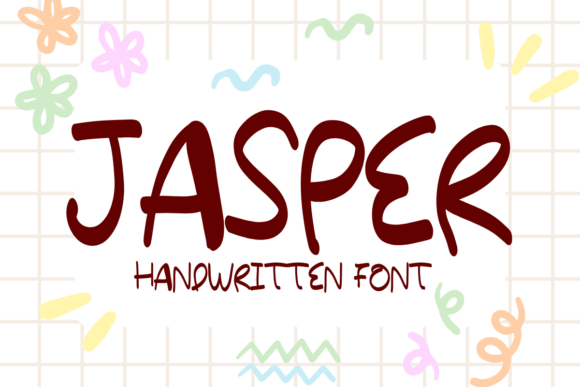
Prepare to be captivated by Jasper Font, a sans serif typeface that harmoniously blends elegance and simplicity. Crafted by the talented Sirinart, this font family is renowned as the perfect choice for wedding programs, exuding an aura of timeless sophistication and refined artistry.
With its clean lines and meticulously designed letterforms, Jasper Font offers an aesthetic that transcends time, making it the ideal font for discerning individuals seeking a balance between classic beauty and modern flair. Its versatility extends beyond wedding programs, as Jasper Font seamlessly lends its charm to branding projects, editorial layouts, and a myriad of creative endeavors.
Step into a realm of sophistication and elevate your designs with Jasper Font. This font adds a touch of class and professionalism to any composition, whether it graces headlines, logos, or body text. Its ability to enhance readability makes it a favorite among designers seeking clarity and impact.
Experience the captivating allure of Jasper Font today and witness the transformation of your designs into masterpieces. Embrace the elegance, embrace the simplicity, and embrace the timeless beauty that Jasper Font brings to your creative vision.